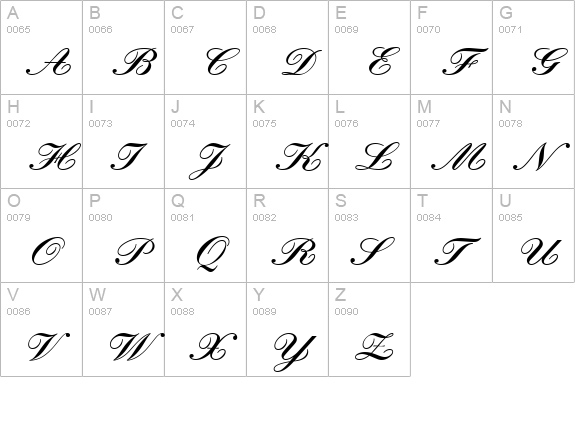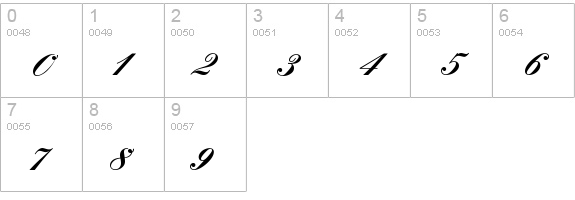
KunstlerschreibschDBol font is a stunning display typeface that exudes elegance and sophistication. With its intricate details and classic aesthetic, this font is perfect for adding a touch of sophistication to any design project. The bold and dynamic letterforms of KunstlerschreibschDBol font make it stand out and grab attention, making it ideal for headlines, titles, and branding materials. What's even better is that KunstlerschreibschDBol font is available for free download at FontsMarket.com. This means you can easily access this beautiful font and incorporate it into your projects without any cost. Whether you're working on a logo, a poster, or a website design, KunstlerschreibschDBol font will elevate your work and give it a touch of timeless elegance. So don't miss out on this opportunity to enhance your designs with this exquisite font - download KunstlerschreibschDBol today!